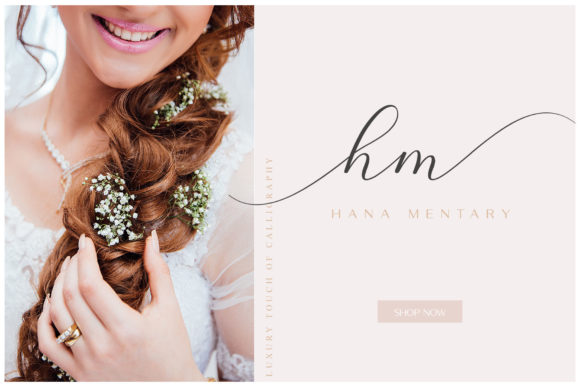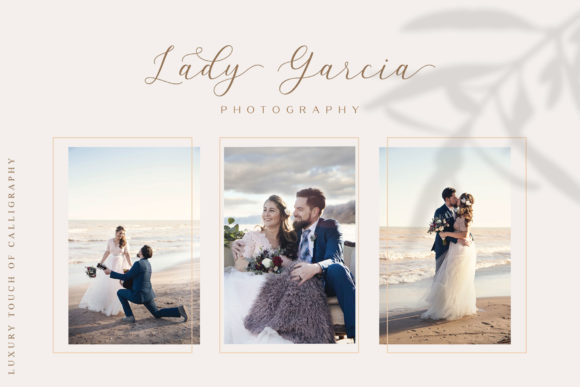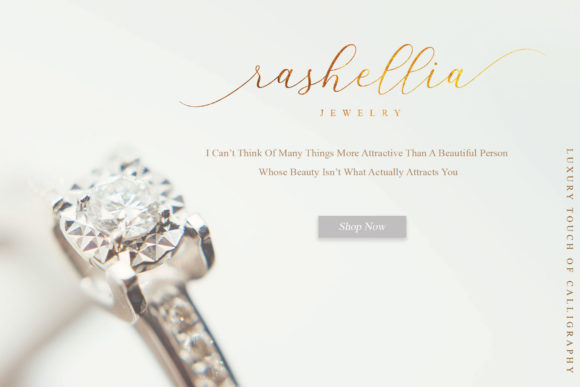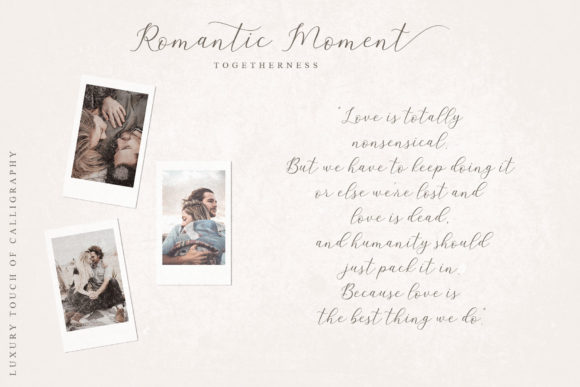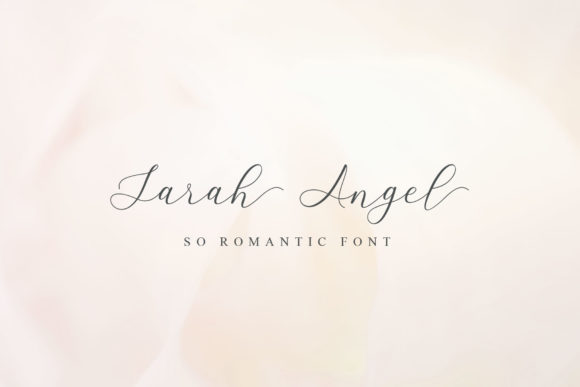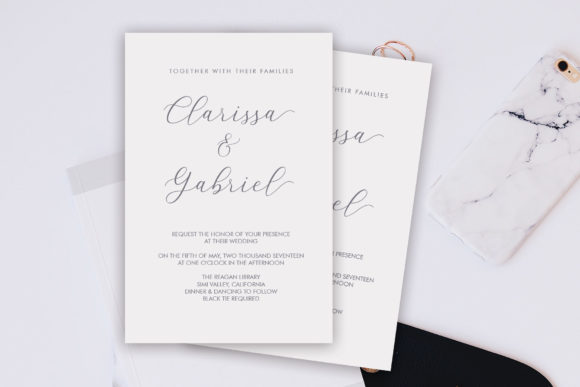
Introducing Amstella Font: Elevate Your Designs with Modern Elegance
Are you tired of using the same old fonts in your designs? Look no further than Amstella Font, a stunning script font that is sure to take your creations to the next level. With its beautiful swashes and modern elegance, Amstella is the perfect choice for designers and crafters looking to add a touch of sophistication to their work.
What is Amstella Font?
Amstella Font is a script font that is designed to make a statement. Its elegant lines and beautiful swashes make it perfect for a variety of design projects, from wedding invitations and branding materials to social media graphics and more. With its modern and sleek design, Amstella is sure to impress your clients and audience.
Key Features of Amstella Font
• Beautiful Swashes: Amstella Font features stunning swashes that add a touch of elegance to any design project.
• Modern Elegance: With its sleek and sophisticated design, Amstella is perfect for designers and crafters looking to create modern and stylish designs.
• Script Font: Amstella is a script font that is designed to be beautiful and eye-catching, making it perfect for a variety of design projects.
Why Choose Amstella Font?
There are many reasons why Amstella Font is the perfect choice for designers and crafters. Here are just a few:
• Unique Design: Amstella Font has a unique design that is sure to make your designs stand out from the crowd.
• High-Quality: Amstella Font is a high-quality font that is designed to look great in any design project.
• Versatile: Amstella Font is versatile and can be used in a variety of design projects, from wedding invitations to branding materials.
Design Ideas Using Amstella Font
Amstella Font is a versatile font that can be used in a variety of design projects. Here are a few ideas to get you started:
• Wedding Invitations: Use Amstella Font to create beautiful wedding invitations that are sure to impress.
• Branding Materials: Use Amstella Font to create branding materials, such as logos and business cards, that are modern and stylish.
• Social Media Graphics: Use Amstella Font to create social media graphics that are eye-catching and engaging.
• Party Decorations: Use Amstella Font to create party decorations, such as banners and signs, that are festive and fun.
Font Name Amstella Font
Author MJB Letters
Amstella Font is a stunning script font that is sure to elevate your designs to the next level. With its beautiful swashes and modern elegance, Amstella is the perfect choice for designers and crafters looking to add a touch of sophistication to their work. Whether you’re creating wedding invitations, branding materials, or social media graphics, Amstella Font is the perfect choice.